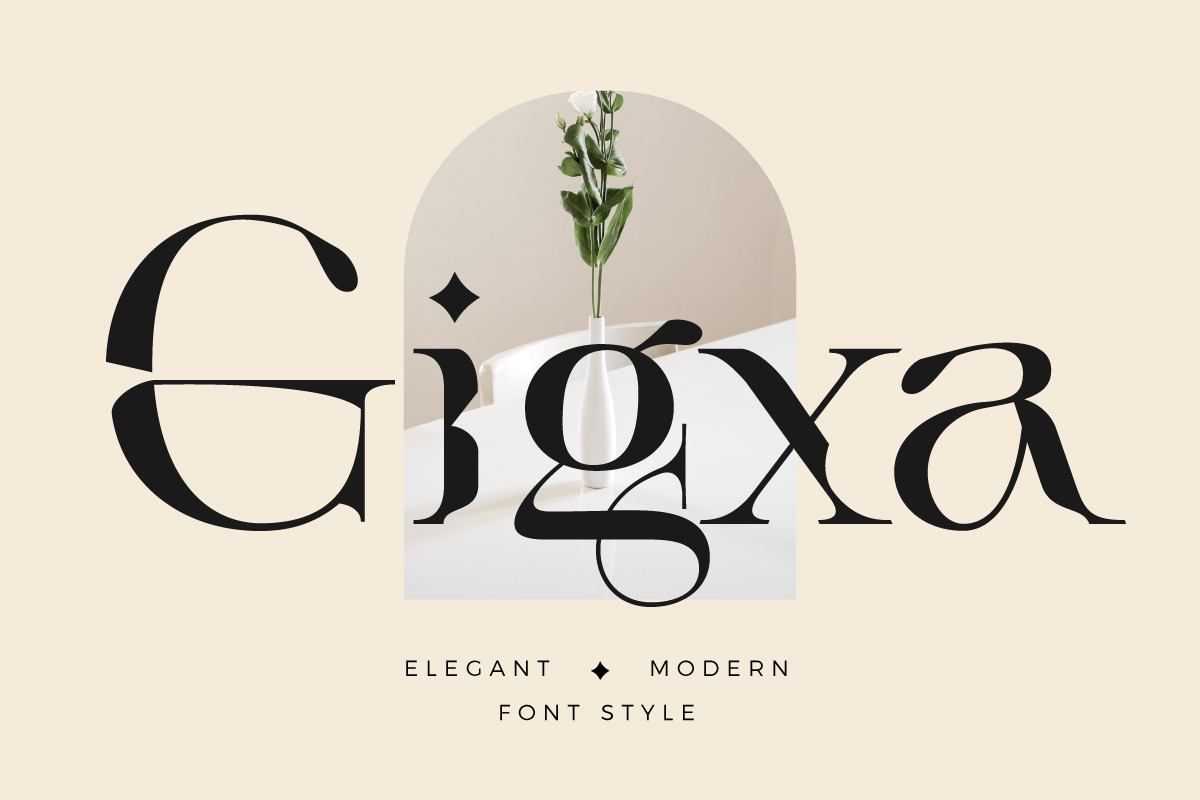
Gigxa Font Free Download is a stylist chic serif typeface with stunning ligatures and high-fashion appeal. Designed for elegance and sophistication, Gigxa is perfect for luxury branding, editorial layouts, logos, wedding invitations, and stylish social media content. Its refined curves and artistic ligatures bring a modern twist to classic serif design.
Every letter in Gigxa is carefully crafted to provide balance, beauty, and versatility. Whether you’re working on a minimalist aesthetic or a bold visual statement, this font adapts effortlessly. Gigxa Font Free Download allows you to test its glamorous charm in personal projects before investing in a commercial license.
Make your designs unforgettable with Gigxa — a chic serif font that speaks the language of modern elegance.